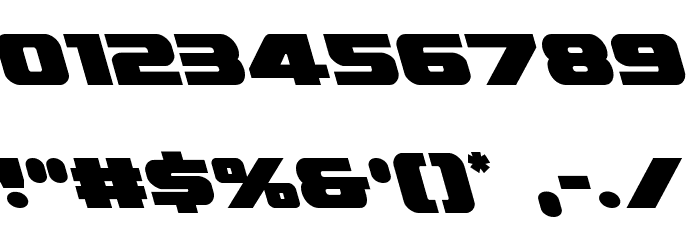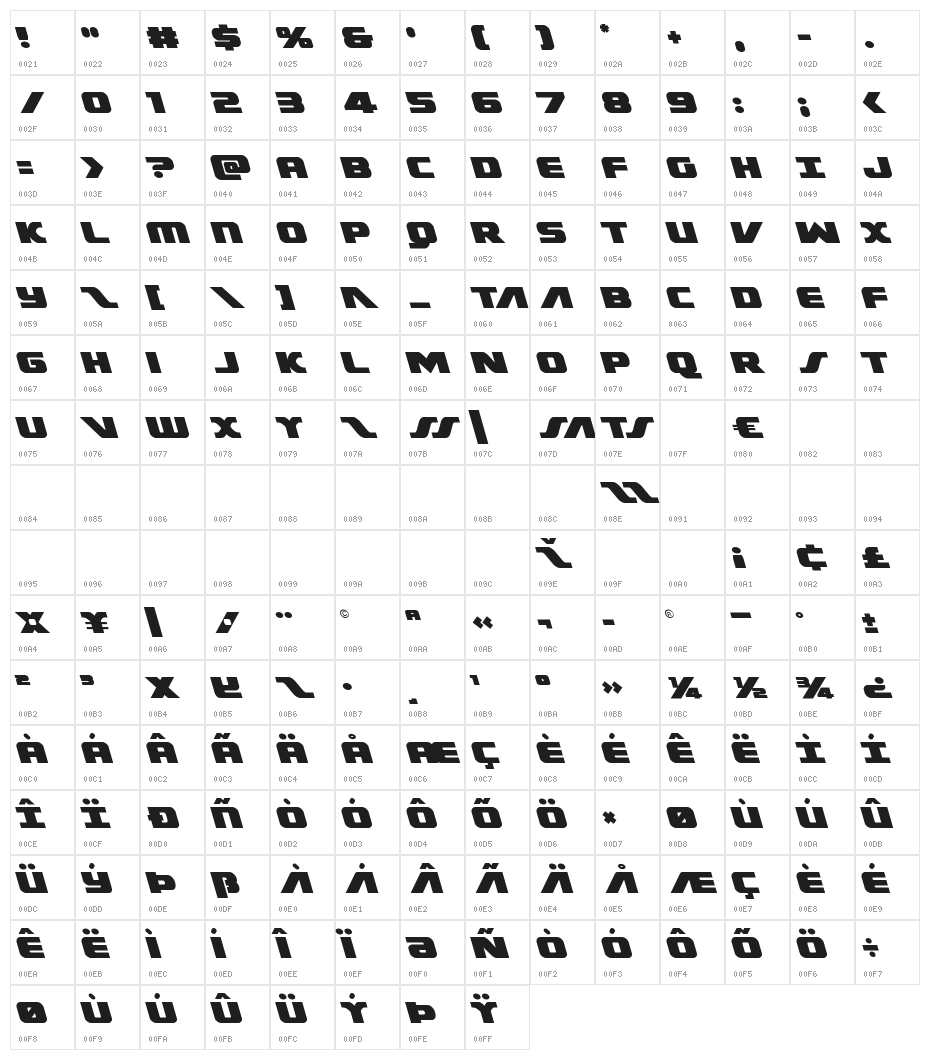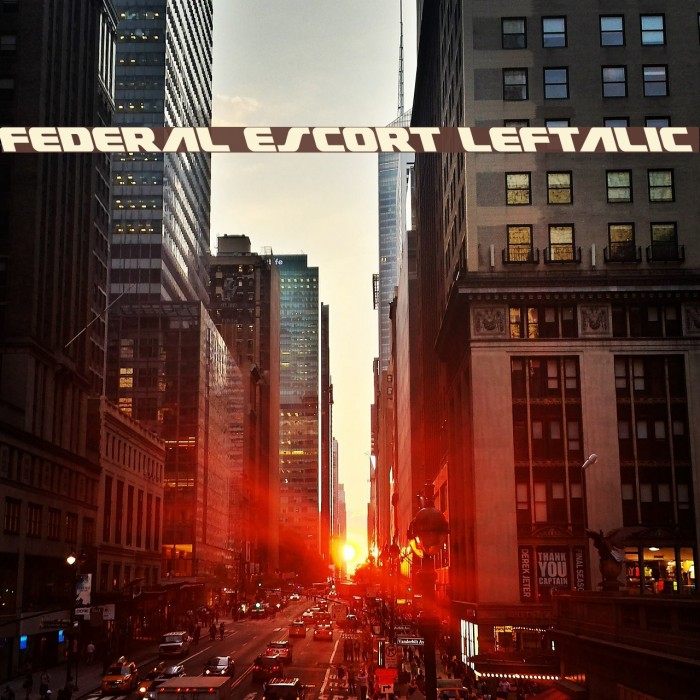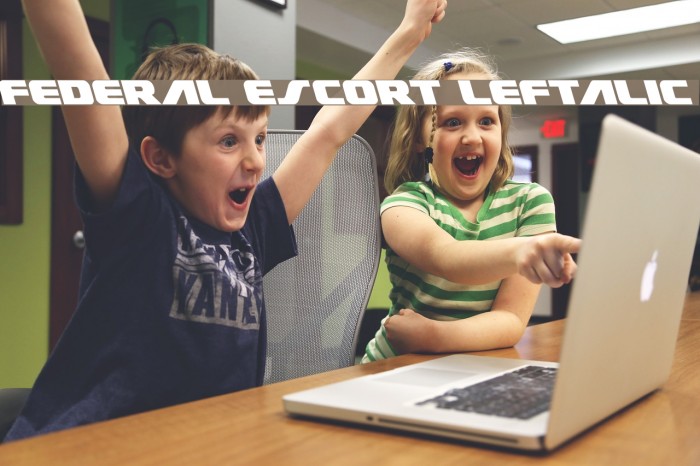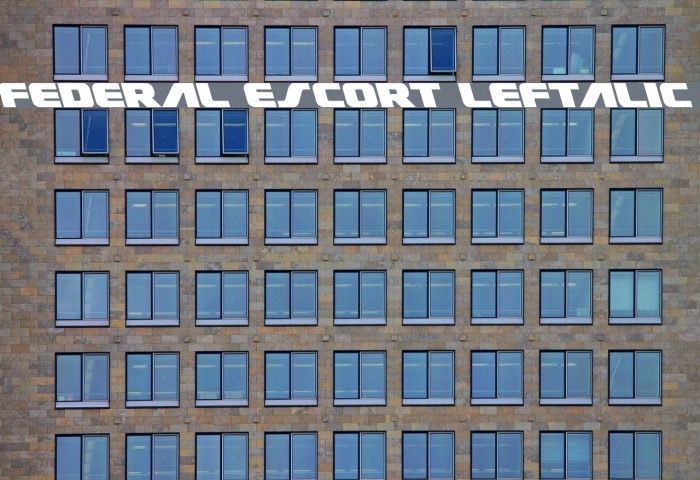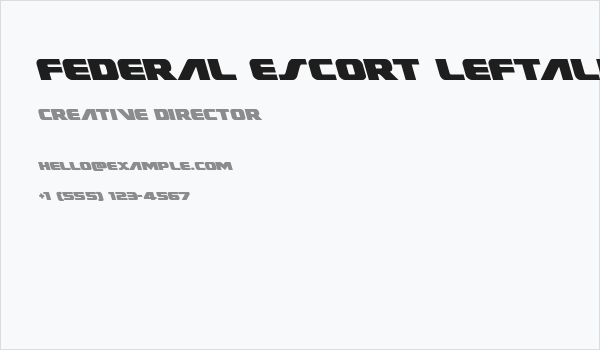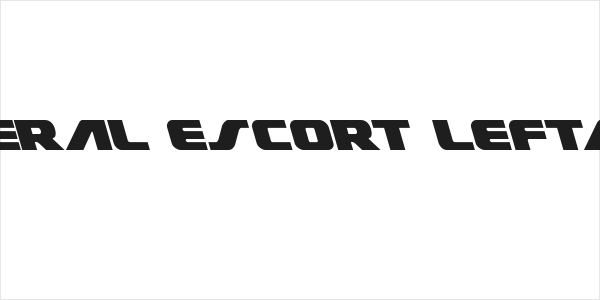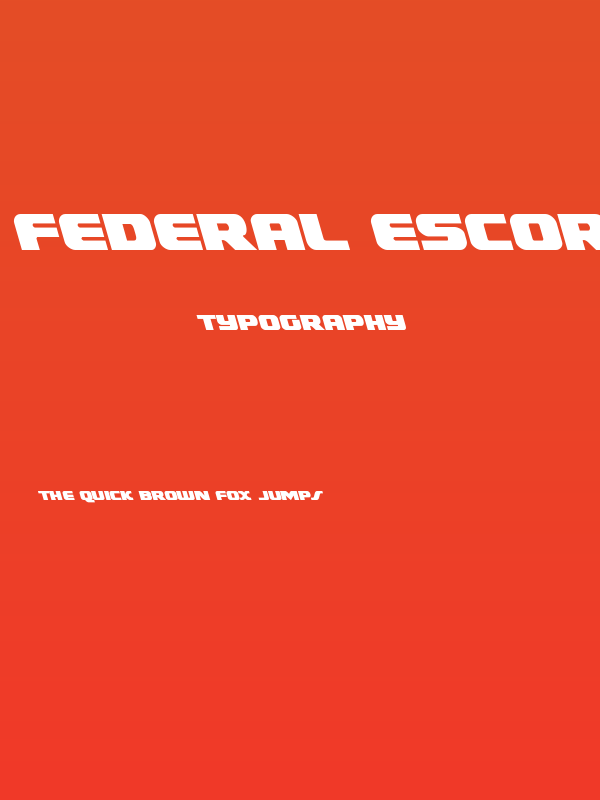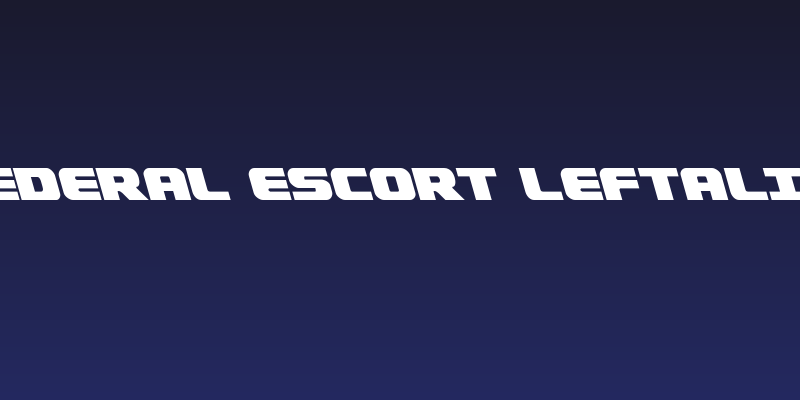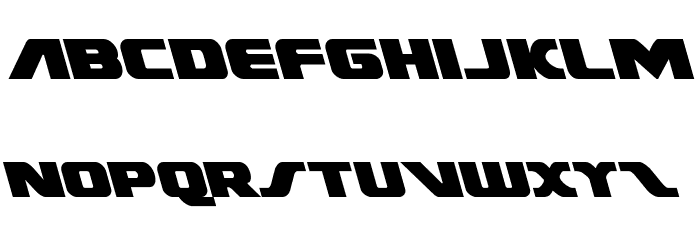
Federal Escort Leftalic Font
Federal Escort Leftalic Description
This font features a bold, futuristic design with angular, geometric shapes. The characters are wide and have a strong presence, making them ideal for attention-grabbing headlines. The uppercase letters have a distinct, blocky appearance, while the lowercase letters maintain a consistent style. Numbers and special characters are designed to match the bold and dynamic aesthetic, ensuring uniformity across all text elements. The font's unique style is reminiscent of sci-fi themes, with a modern twist that makes it suitable for contemporary designs.
| Overall Style | Futuristic, Modern |
| Proposed Projects | Ideal for sci-fi themed posters, video game titles, tech branding, and futuristic advertisements. |